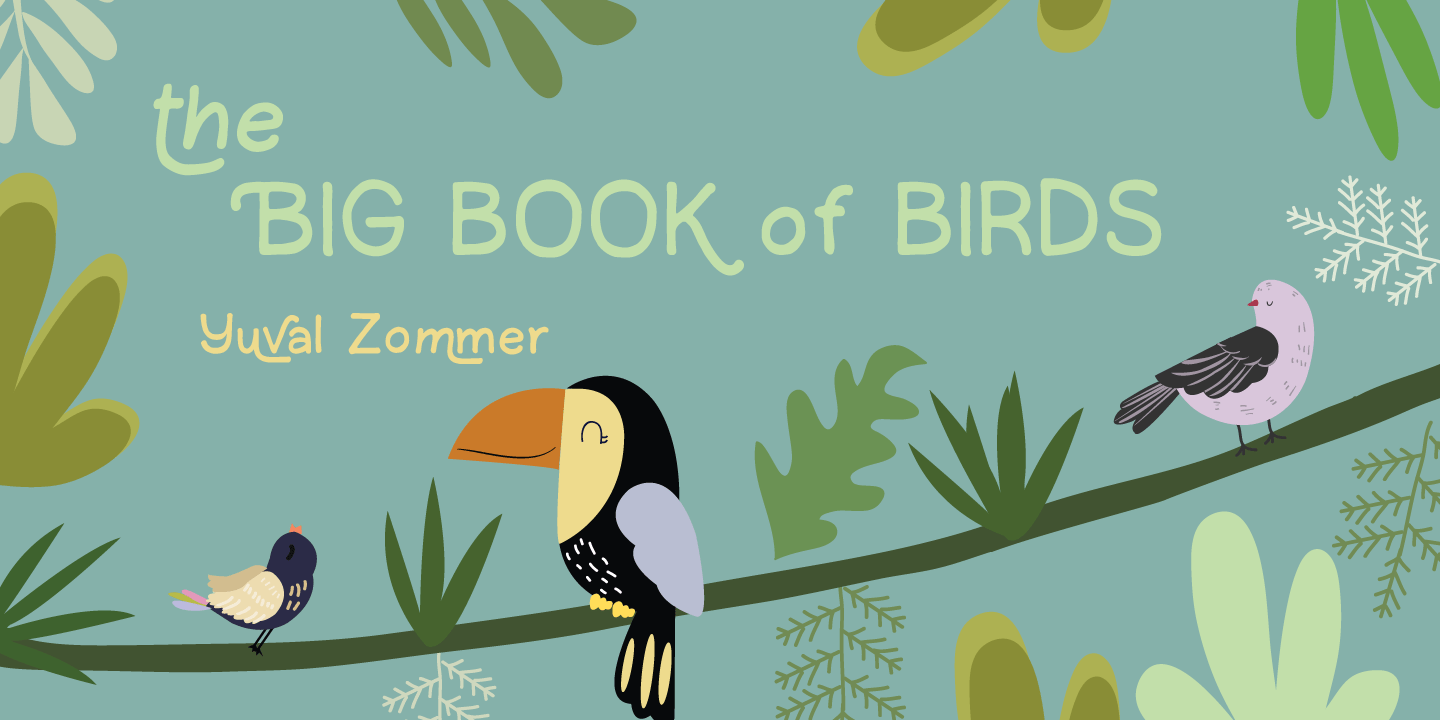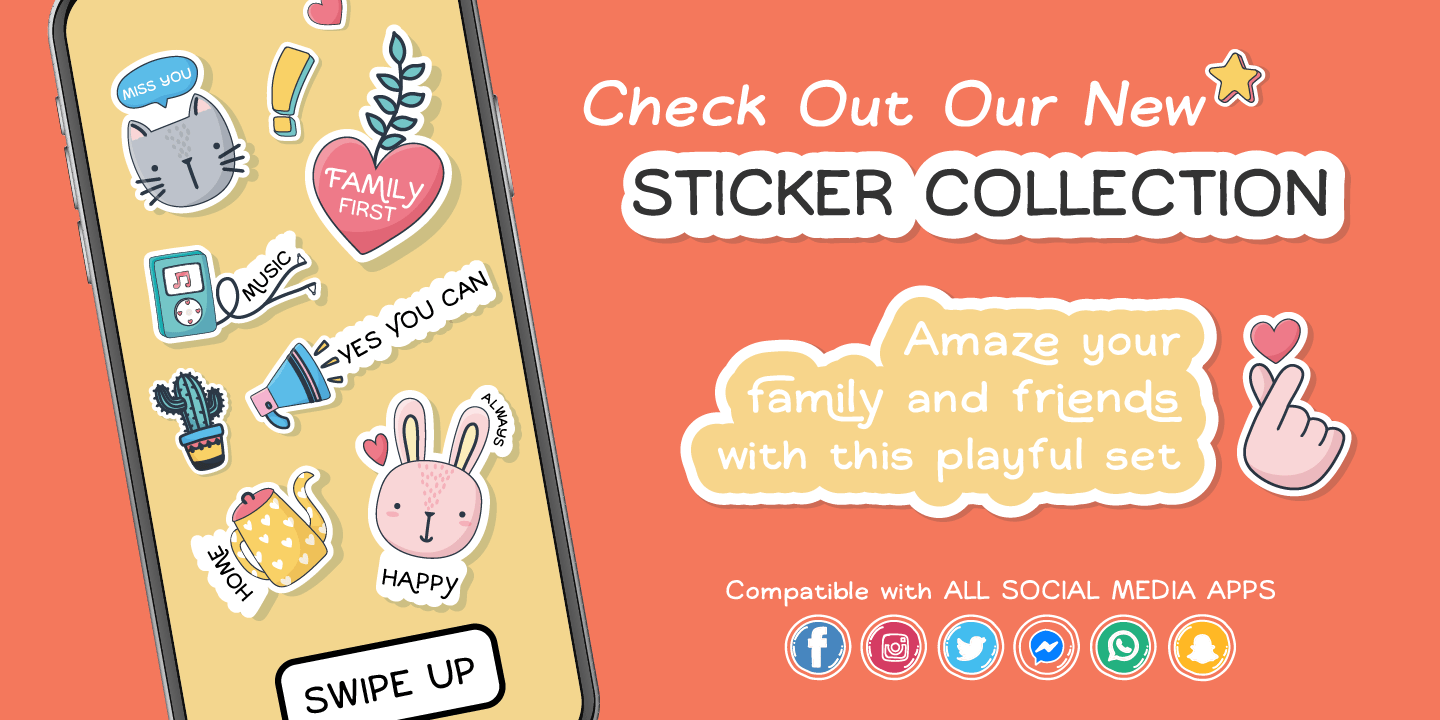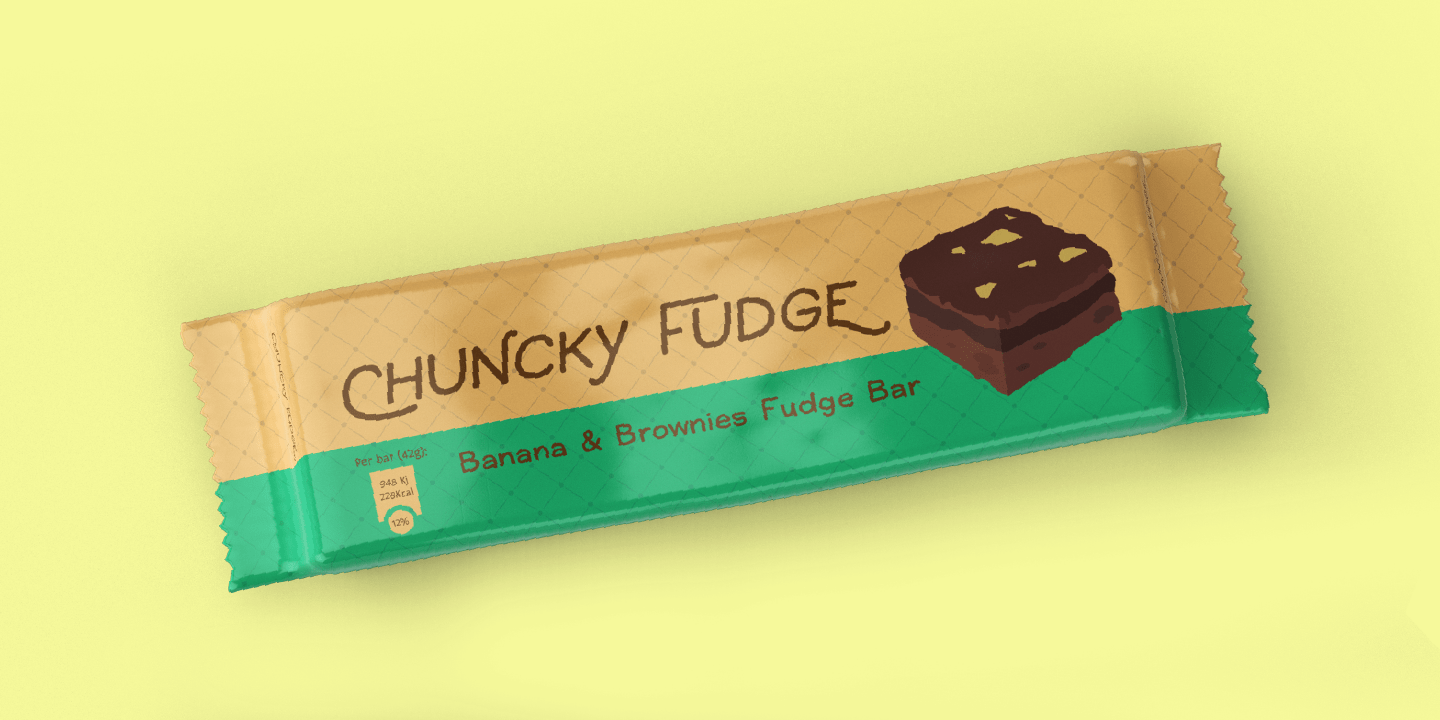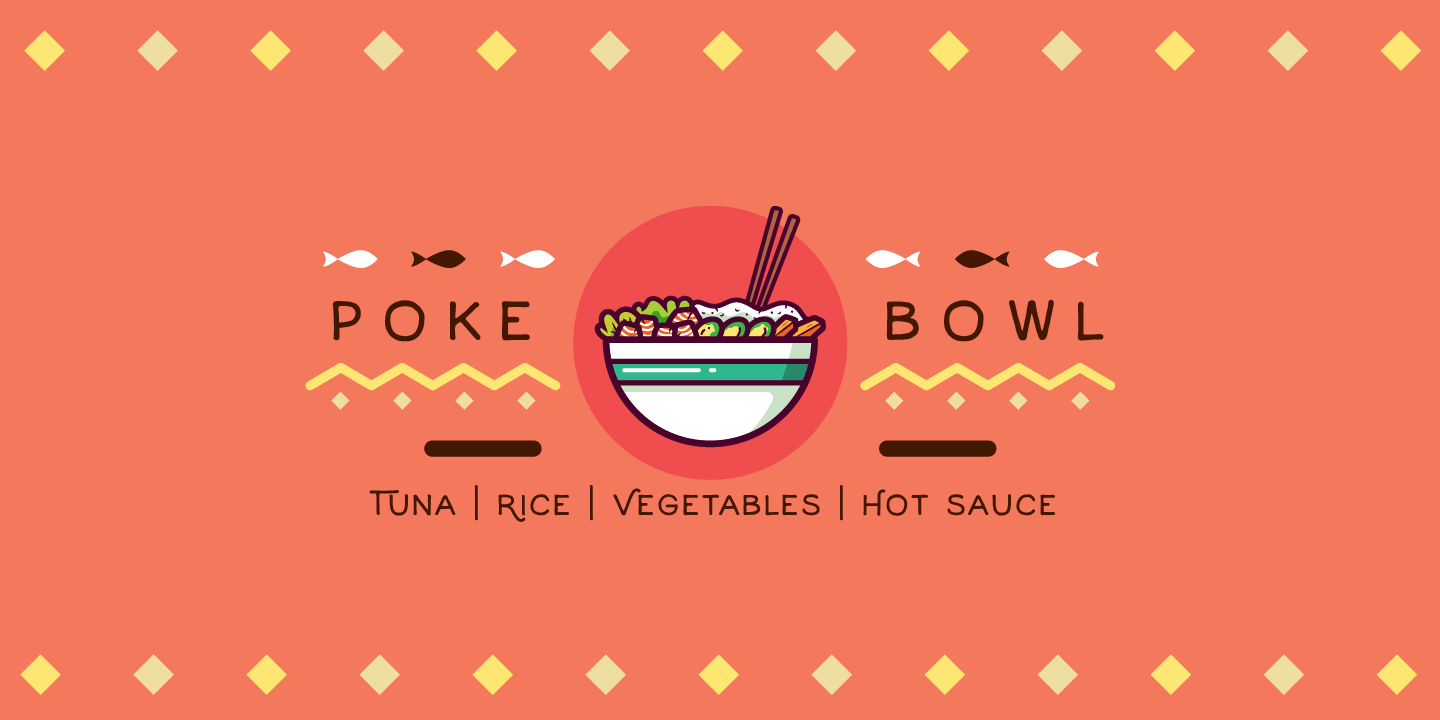
About Little Boxes
A new happy handwritten sans serif font has arrived! Little Boxes has been designed with felt pen on smooth paper to create the illusion of human craft and then digitalized. Optimized shapes to obtain the best readability without loosing the analogical…